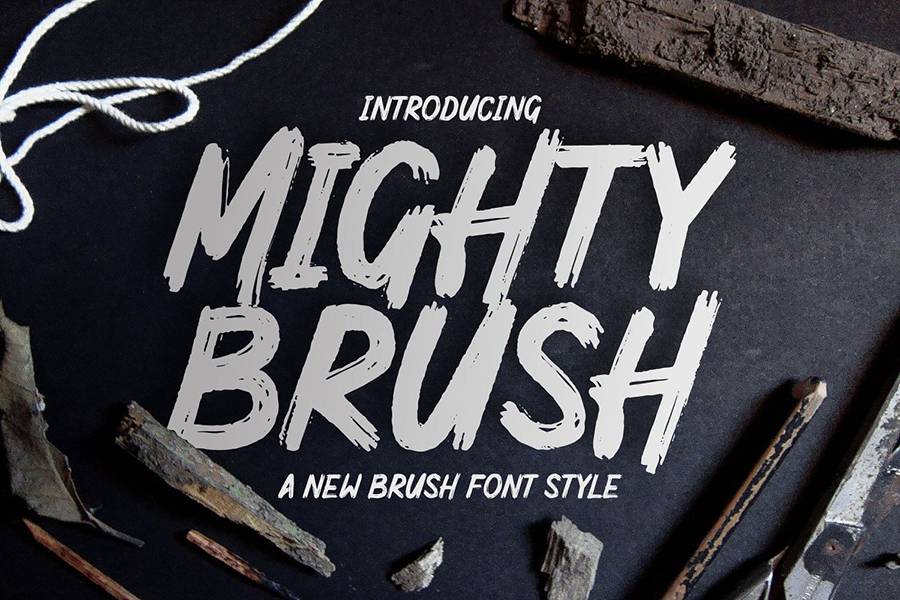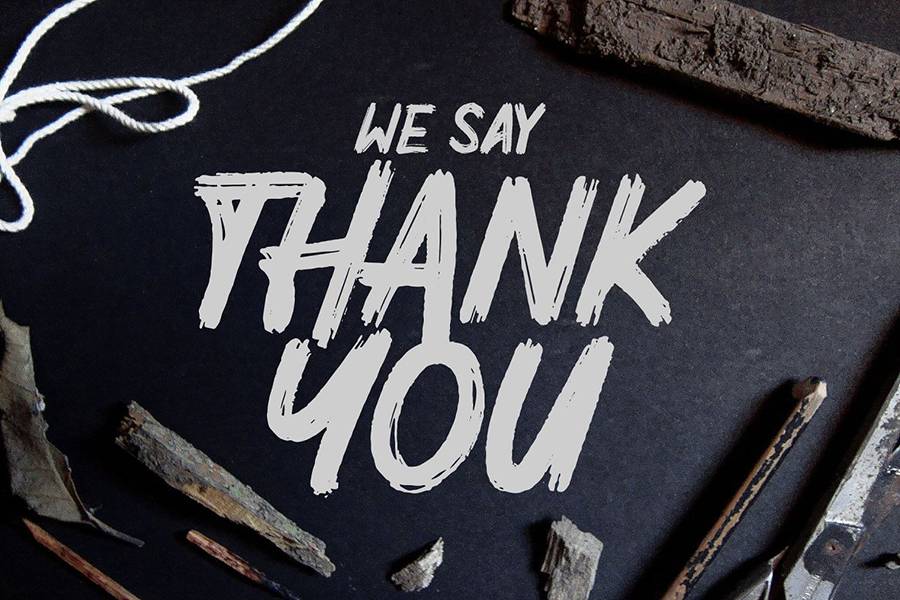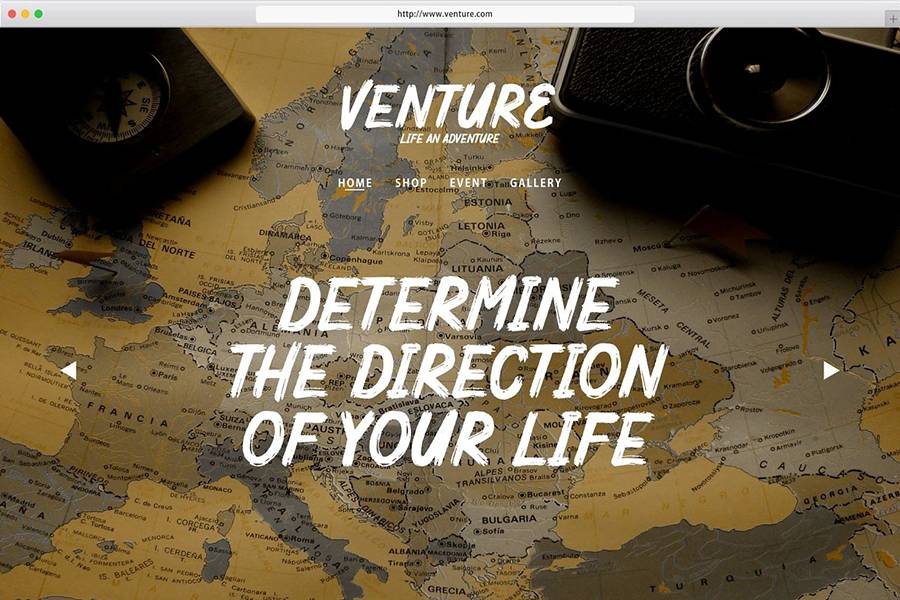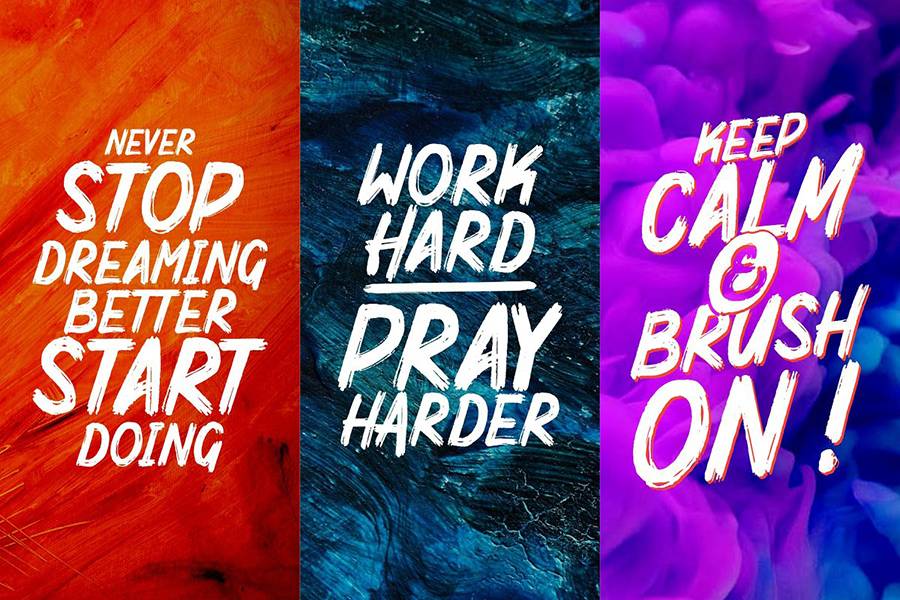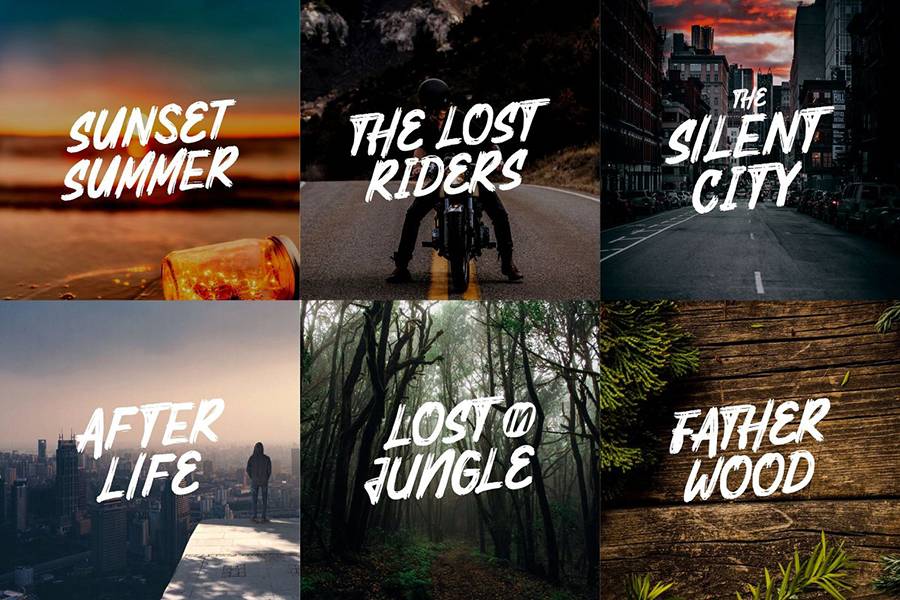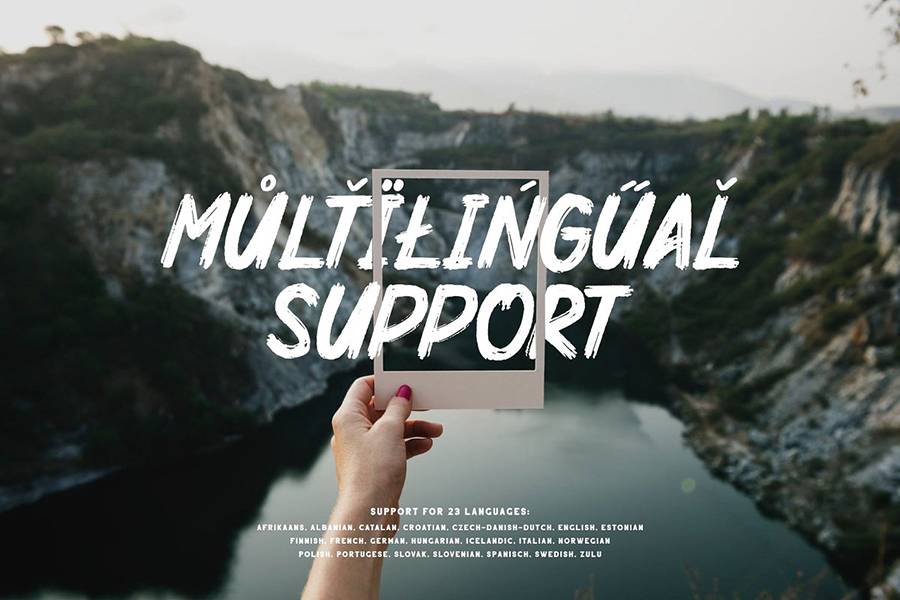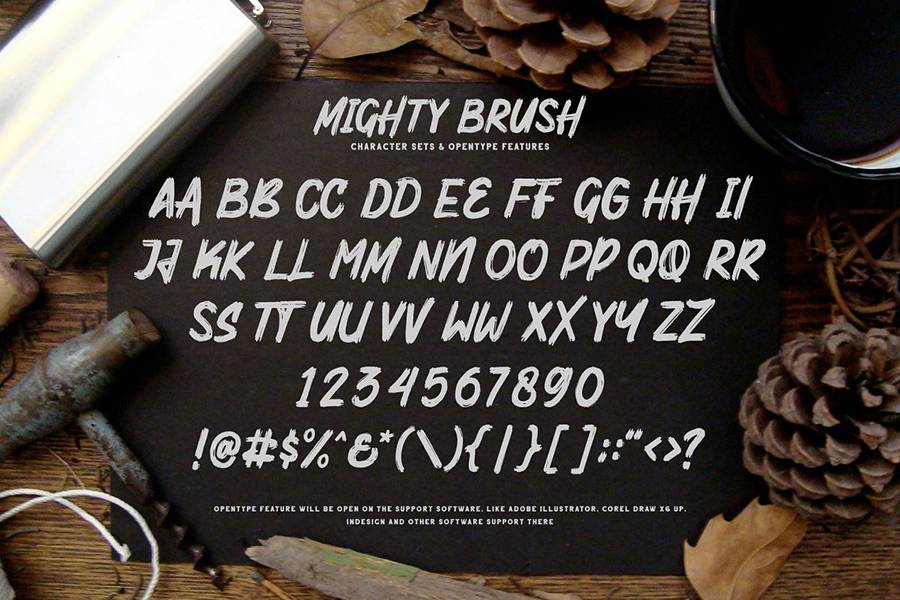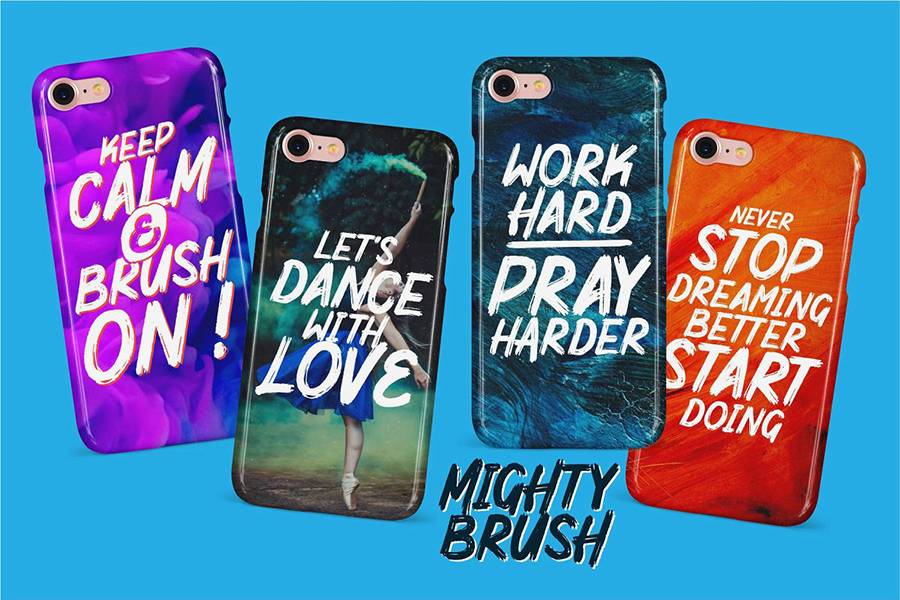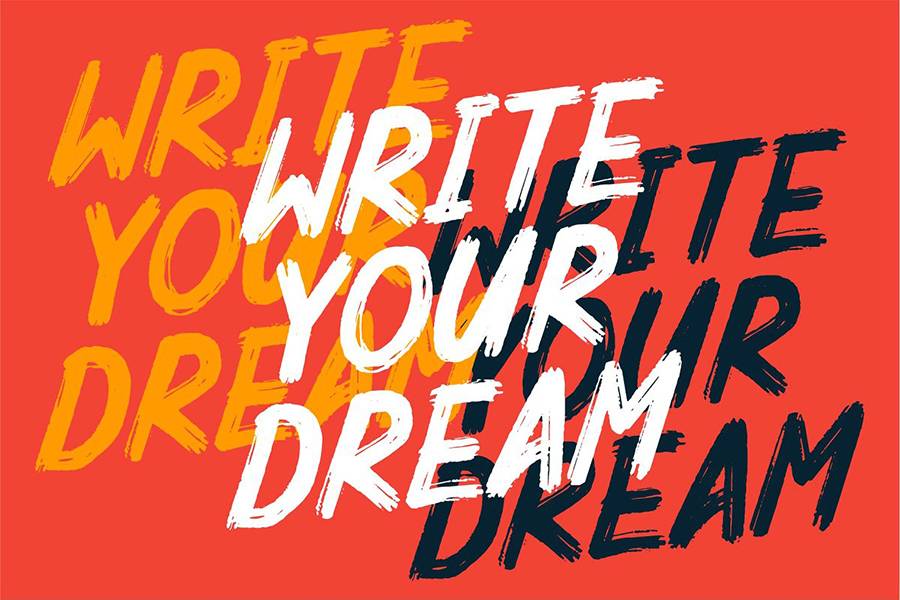
Mighty Brush is a bold, sans serif display font with a rugged, hand-painted brush style that brings energetic personality and texture to any design. Its rough edges and slanted letterforms convey a casual, creative vibe perfect for eye-catching headlines, posters, and branding that needs a lively, artistic touch. This font works best in projects seeking a dynamic, expressive look that feels both modern and handcrafted.